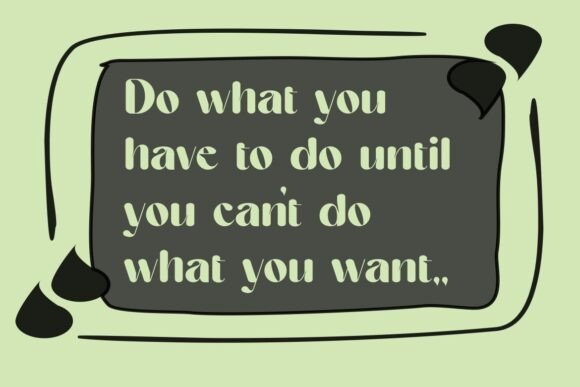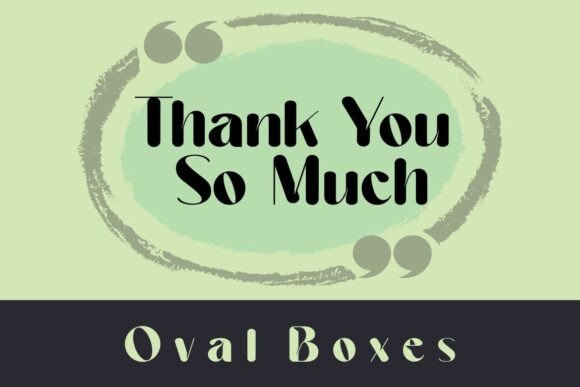
Introduction to Oval Boxes Font Font
Do you remember the moment when you finally nailed that logo design for your favorite client? The rush of excitement and satisfaction when you see your creation come to life? That’s what makes design so magical. And for designers, having the right tools and resources can make all the difference in bringing their creative visions to life.
One such resource is the Oval Boxes Font Font, a bold and authentic sans serif font that’s perfect for any branding project. With its sleek and modern aesthetic, this font is ideal for logo designs, t-shirt printing, esports, and more. Plus, with its transparent background and high-quality design, it’s a valuable addition to any designer’s toolkit.
Key Features of Oval Boxes Font Font
- Unique and creative design elements for various design projects
- Perfect design resource for creative projects requiring unique and modern elements
- Includes a range of Oval Boxes Font Font elements, including shapes and icons
Honest Review: Oval Boxes Font Font
As a designer, I’m always on the lookout for high-quality design resources to elevate my creative projects. Oval Boxes Font Font has caught my attention, and I’m excited to share my honest review.
- ✨ Unique and quirky design aesthetic that adds a touch of personality to any project.
- ✨ High-quality vector graphics that scale well for various design applications.
- ⚠️ Limited customization options, which may not appeal to designers who prefer more flexibility.
Overall, Oval Boxes Font Font is a solid design resource that can add a creative twist to your projects. While it may not be perfect, its unique design and high-quality graphics make it a valuable addition to any design library. If you’re looking for a quirky font to spice up your designs, Oval Boxes Font Font is definitely worth checking out.
Oval Boxes Font Font
Alternatives to Oval Boxes Font Font
Font Awesome is a popular font library that offers a wide range of high-quality icons and glyphs for designers to use in their creative projects. With a transparent background, it’s easy to customize and style to fit any design resource. Download Font Awesome for free to enhance your designs with a vast collection of icons.
Compared to Oval Boxes Font Font, Font Awesome offers a more extensive library of icons, making it a better choice for projects that require a diverse range of symbols. However, Oval Boxes Font Font has a more unique and playful style that may be more suitable for certain design projects.
Material Design Icons is a set of high-quality icons designed by Google, suitable for use in Android, web, and mobile applications. This design resource offers a wide range of icons with a transparent background, making it easy to customize and style. Download Material Design Icons for free to elevate your design projects with a consistent and modern look.
Compared to Oval Boxes Font Font, Material Design Icons has a more minimalist and modern style that may be more suitable for projects that require a clean and simple design. However, Oval Boxes Font Font offers a more playful and creative vibe that may be more appealing to designers looking for a unique style.
Q: What file formats are available for the Oval Boxes Font Font?
Q: Is the Oval Boxes Font Font suitable for use in high-resolution designs?
Yes, the Oval Boxes Font Font is designed to be high-quality and scalable, making it suitable for use in high-resolution designs. It will maintain its clarity and detail even when enlarged to large sizes.